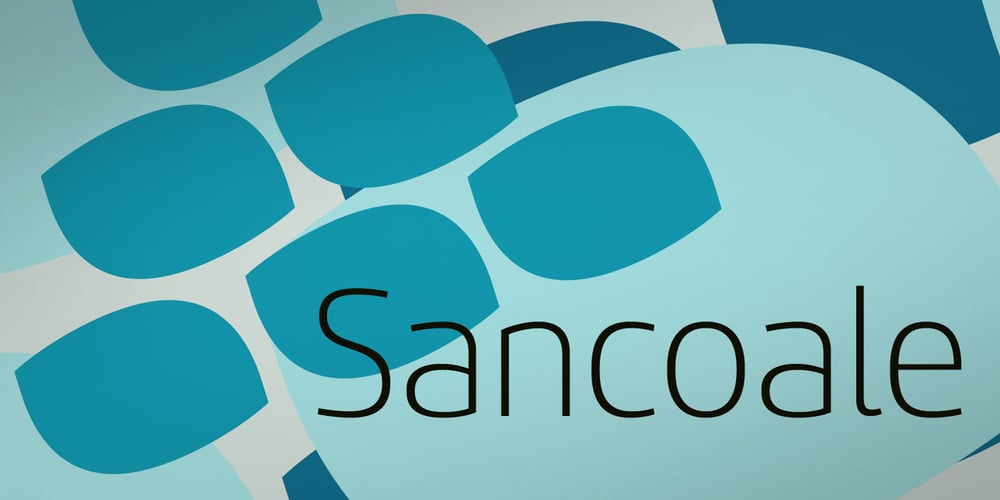
Sancoale
Sancoale font
Sancoale Font Family was designed by Jeremy Dooley and published by insigne. Sancoale contains 12 styles and family package options. Sancoale is a new sans serif that is simple and geometric. It is a contemporary design that is distinctive and unique, but not too far outside the box. This makes for a typeface family that is very useful for many applications. The design is simplified without stems or spurs in the default character set. The OpenType alternates do include alternates with stems, and there are six weights with true italics. Please see the informative .pdf brochure to see these features in action. OpenType capable applications such as Quark or the Adobe suite can take full advantage of the automatically replacing ligatures and alternates. This family also includes the glyphs to support a wide range of languages. Sancoale is a great choice for a professional designer that wants to achieve a simple but still unique look.